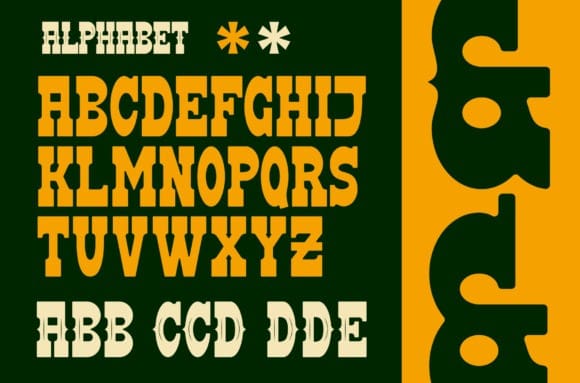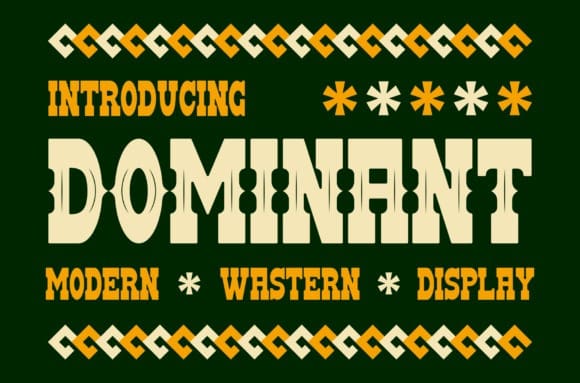
Dominant Font
Dominant Font is an incredibly cool and unique display font. It has a retro yet whimsical style and it will undoubtedly immerse your designs into a magical world.